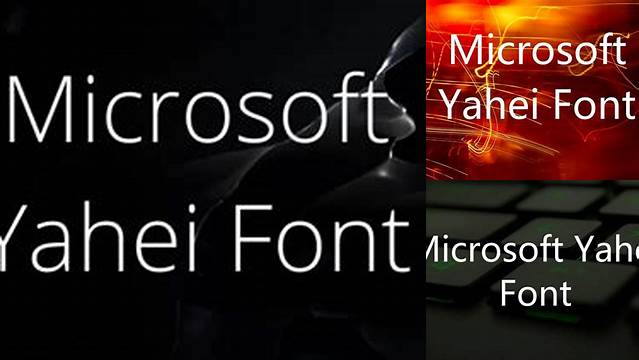
Microsoft YaHei: Free Font Download Guide
What is Microsoft YaHei Font?
Microsoft YaHei is a sans-serif typeface designed by Microsoft for the Chinese market, specifically for Simplified Chinese. It's known for its clean, modern, and legible design, making it a popular choice for a wide range of applications. This font is particularly effective on screens, providing excellent readability even at small sizes. Its balanced structure and smooth curves contribute to a visually pleasing aesthetic, making it a go-to option for designers and everyday users alike. The font family includes various weights, such as Light, Regular, and Bold, offering flexibility for different design needs. When discussing microsoft yahei font free download, it’s important to understand that the font is typically included with Microsoft Windows and Office, so obtaining it often means ensuring you have a valid license for these products. The clarity and versatility of Microsoft YaHei have made it a staple in digital typography.
Key Features and Benefits
One of the biggest advantages when considering a microsoft yahei font free download is its versatility. This typeface is not just aesthetically pleasing; it's also highly functional. Its clean and modern design ensures readability across various media, from digital screens to printed materials. Microsoft YaHei's smooth curves and balanced structure make it easy on the eyes, reducing strain even during prolonged reading. The font family includes multiple weights, such as Light, Regular, and Bold, providing designers with the flexibility to create visual hierarchy and emphasis. This is crucial for effective communication in documents, presentations, and websites. Moreover, its wide character set supports various languages, making it suitable for international projects. Whether you're working on a corporate report, a website design, or a marketing campaign, Microsoft YaHei's features ensure your text is both legible and visually appealing. The benefits extend beyond aesthetics, contributing to improved user experience and professional communication.
Alternatives to Microsoft YaHei
If, for any reason, you can't get your hands on Microsoft YaHei, or you're looking for similar fonts, there are plenty of alternatives to explore. One popular option is Noto Sans, a versatile typeface designed by Google to support multiple languages. It offers a clean and modern look similar to Microsoft YaHei. Another great choice is Open Sans, a humanist sans-serif font designed by Steve Matteson. It's highly legible and works well in various contexts. Lato, designed by Łukasz Dziedzic, is another excellent alternative, known for its semi-rounded details that give it a warm and friendly feel. If you prefer a more geometric look, consider Montserrat, a font inspired by urban typography in Buenos Aires. These alternatives offer similar aesthetics and functionality to Microsoft YaHei, providing you with options for your projects. When considering a microsoft yahei font free download alternative, it's essential to choose a font that aligns with your design goals and branding. Exploring different typefaces can also lead to discovering new favorites that enhance your creative work.
Using Microsoft YaHei in Web Design
Microsoft YaHei can be a fantastic choice for web design, but it's important to consider a few factors. Since it's not a standard web-safe font, you'll need to ensure it's properly implemented to display correctly across different browsers and devices. The best way to use Microsoft YaHei on your website is by using CSS @font-face rule. This allows you to embed the font file directly into your website, ensuring that visitors see the font even if they don't have it installed on their computers. However, be mindful of the file size. Large font files can slow down your website's loading speed, which can negatively impact user experience. Optimize the font file by using only the weights and styles you need. Alternatively, consider using a font service like Google Fonts, which offers a wide range of web-optimized fonts. While you won't find Microsoft YaHei there, you can find similar fonts that are designed for web use. When thinking about a microsoft yahei font free download for web design, remember that performance and accessibility are key. Choose fonts that load quickly and are easy to read on different screen sizes.